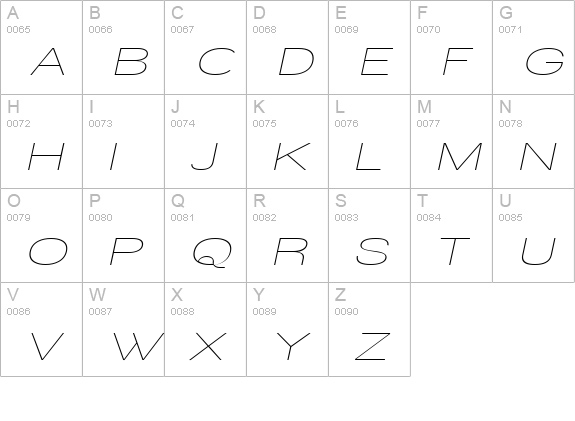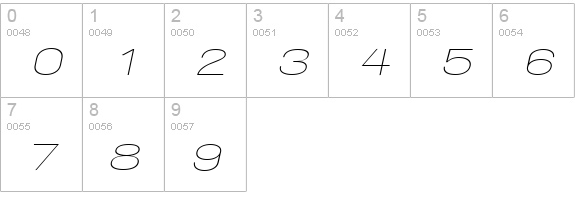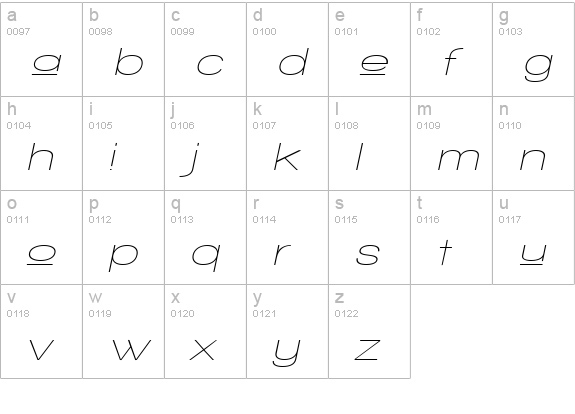
Walkway Upper Oblique Expand is a distinctive, italic variant in the Walkway typeface family \xE2\x80\x94 well suited to design and typography projects.
Walkway Upper Oblique Expand font is a stylish and modern typeface that adds a touch of sophistication to any design. With its sleek and edgy look, this font is perfect for creating eye-catching headlines, banners, and logos. The unique oblique expand style gives a dynamic and energetic feel to your projects, making them stand out from the crowd. What sets Walkway Upper Oblique Expand font apart is that it is freely available to download at FontsMarket.com. This means you can easily access this high-quality font without any cost, making it a great choice for designers and creatives looking to enhance their work without breaking the bank. Whether you're working on a personal project or a professional design, Walkway Upper Oblique Expand font is sure to elevate your designs to the next level.